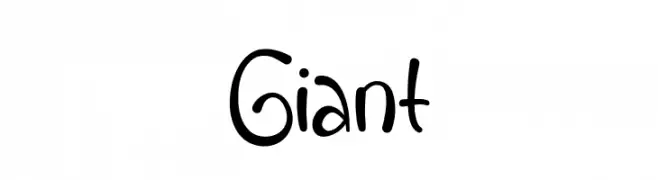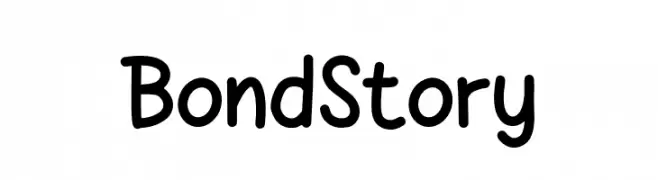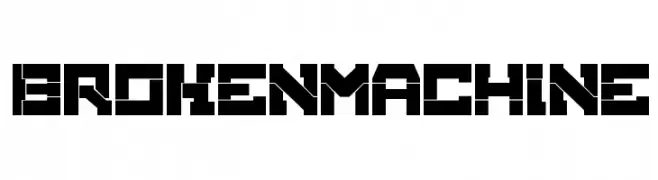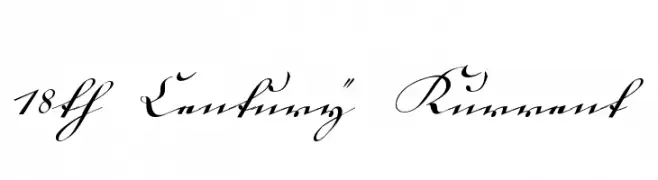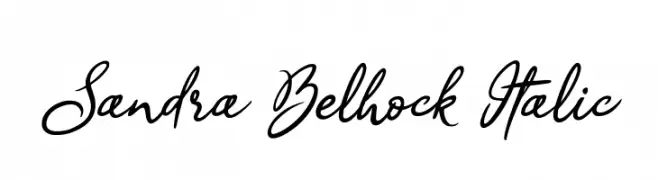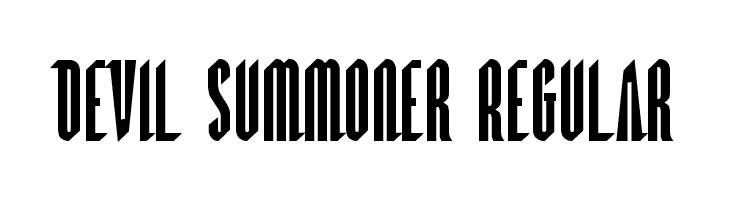
( Fonts by Erik Studio )
A playful, casual handwritten font with rounded edges and consistent flow.
( Fonts by DeheL )
A bold, geometric font with a futuristic and mechanical style.
( Peter Wiegel - www.peter-wiegel.de )
An elegant, historical script font with intricate flourishes and a vintage charm.
( Fonts by bob istheowl http://luc.devroye.org/bobistheowl.html )
Bold, graphic display font inspired by street art and propaganda.
A modern, semi-bold italic sans-serif font with medium contrast and normal spacing.
A dynamic and elegant script font with a flowing, handwritten style.
( Fonts by antoniorodriguesjr.com )
A thin, geometric font with a modern and minimalist design.
( Fonts by Galdino Otten - galdinootten.com )
A playful, freehand style font mimicking natural handwriting.
A playful and decorative collection of medical-themed symbols and illustrations.